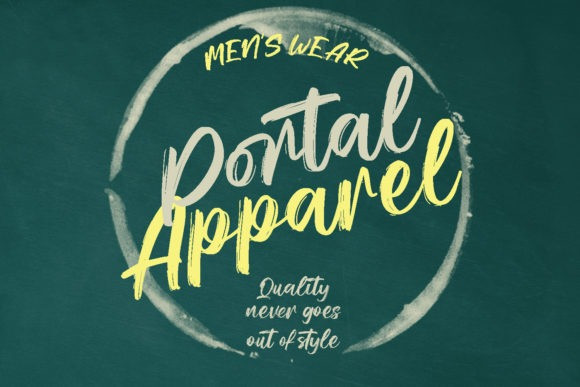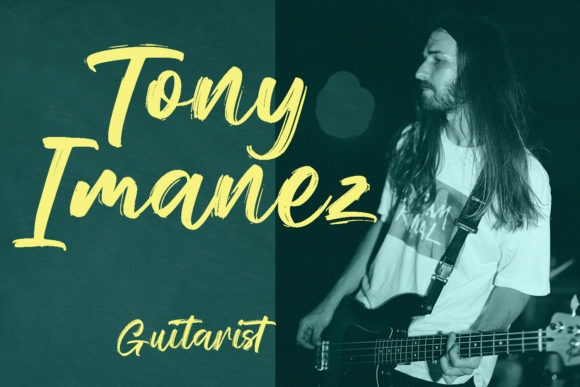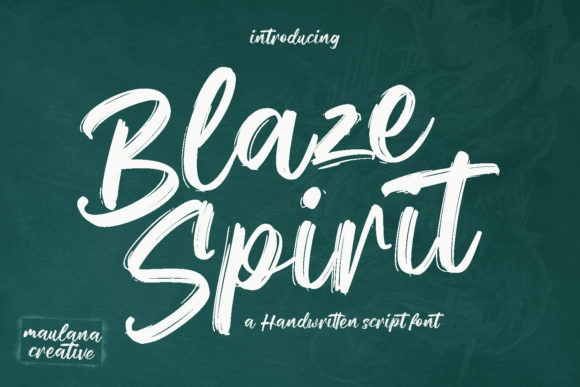
Blaze Spirit Font
Blaze Spirit Font is a fancy brush script font. With bold brush contrast stroke, fun character with a bit of ligature to give you extra creative work. Blaze Spirit font has multilingual support and is good for logo design, Social media, Movie Titles, Book Titles, and any secondary text font with sans or serif. Make a stunning work with the BlazeSpirit font.